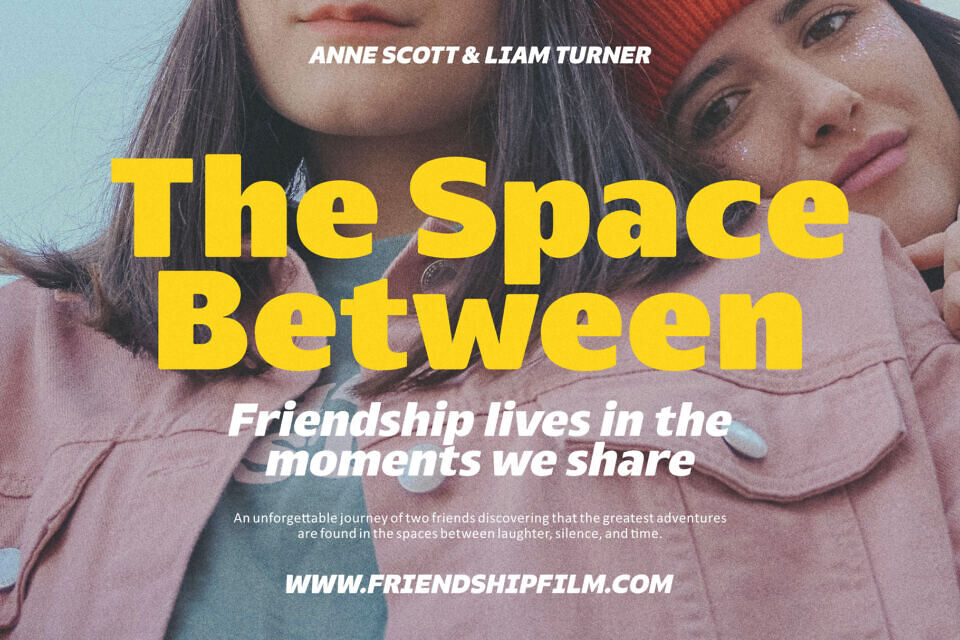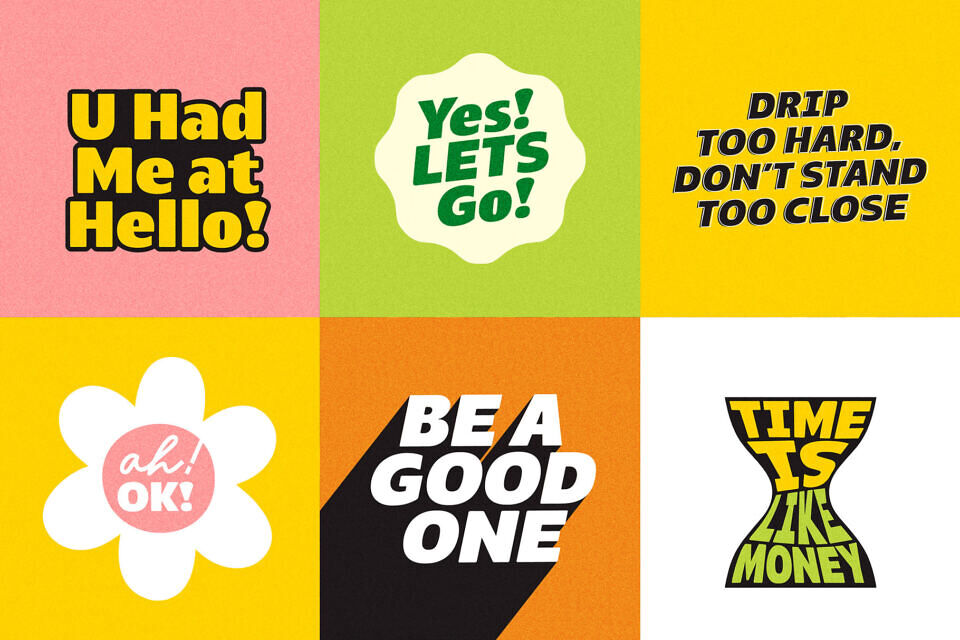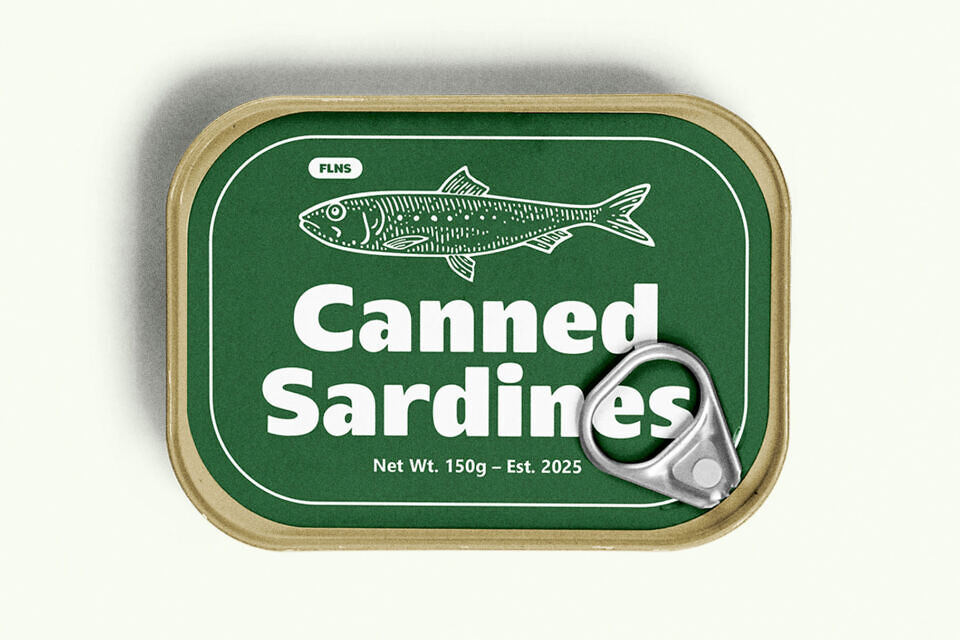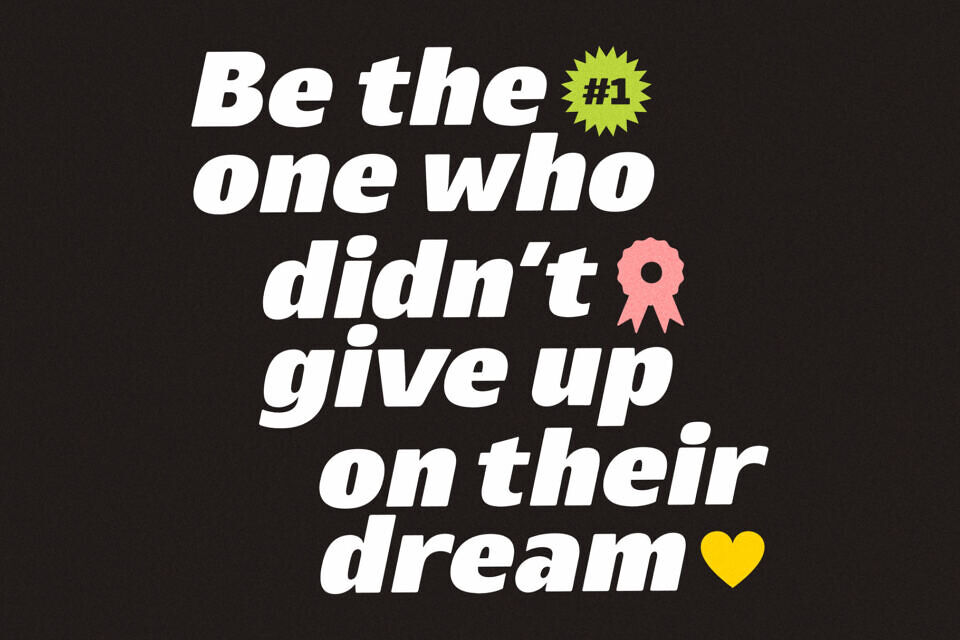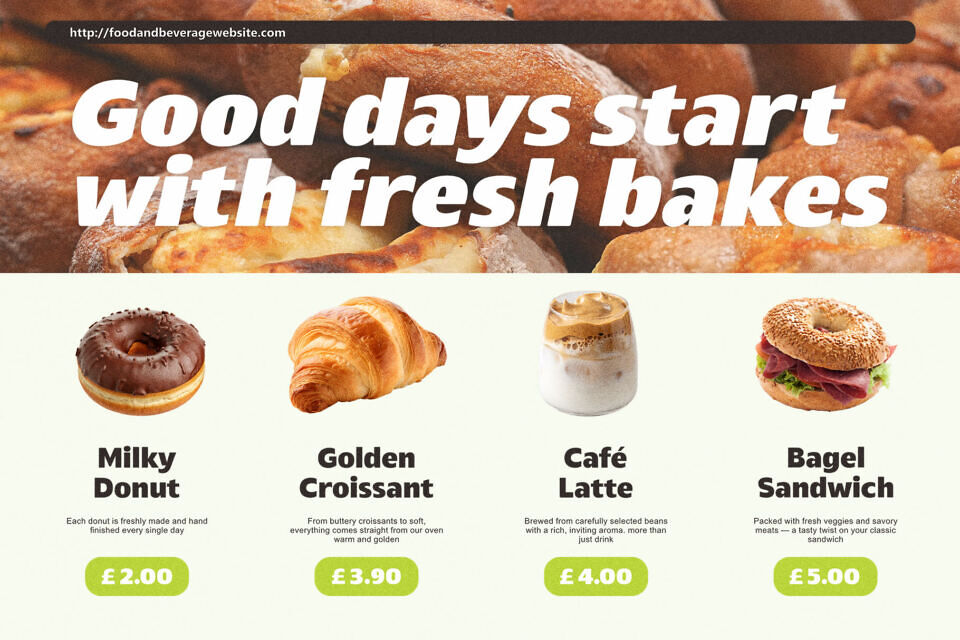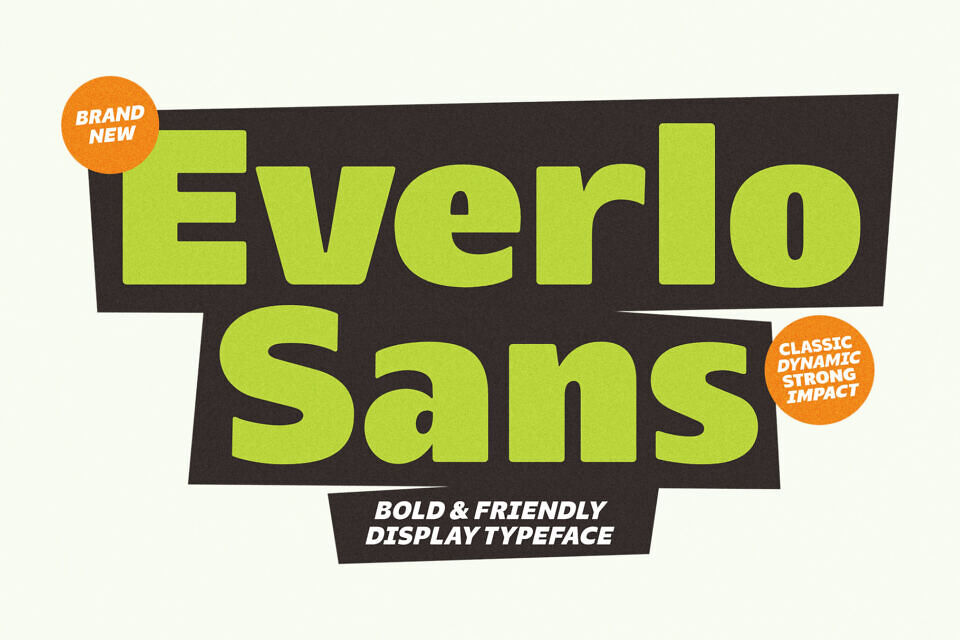
Everlo Sans Font
Everlo Sans is a bold & friendly display typeface designed to bring a sense of strength, dynamism, and warmth to any project. With its solid yet approachable letterforms, Everlo Sans strikes the perfect balance between classic character and modern style.
Perfect for a wide range of design needs such as posters, headlines, branding, logos, product packaging, film titles, editorial layouts, quotes, social media posts, and campaign ads.